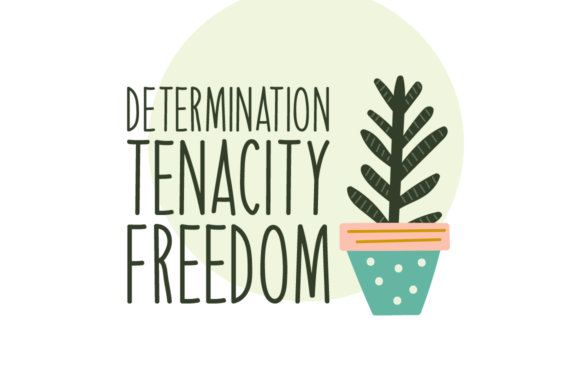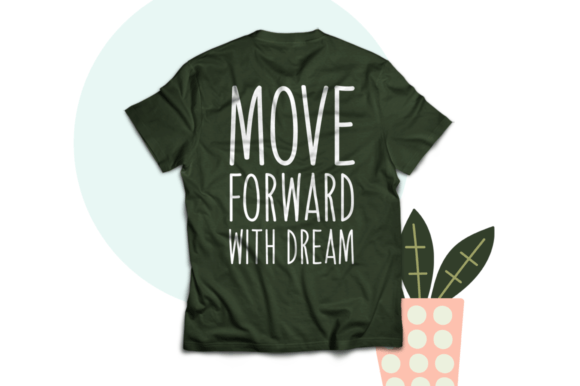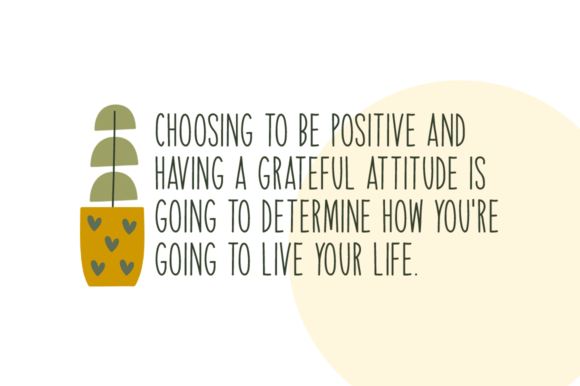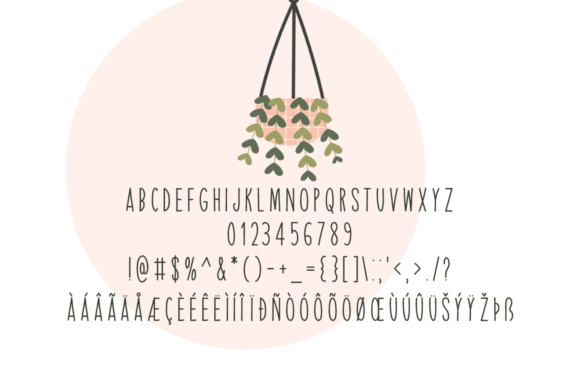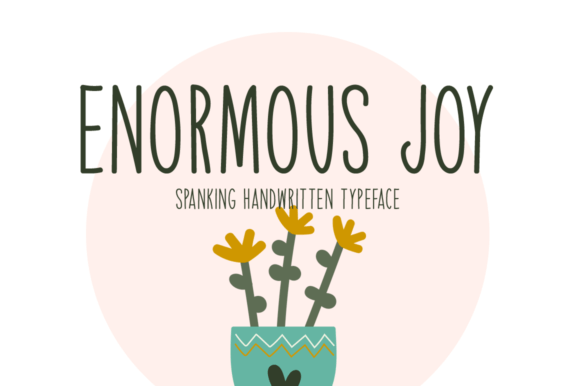
Introducing Enormous Joy Font: The Perfect Handwritten Style for Your Creative Projects
Are you a designer, crafty DIY enthusiast, or simply someone who loves to add a personal touch to your creations? Look no further! We’re thrilled to introduce the Enormous Joy Font, a brand new handwritten font that’s perfectly suited for a wide range of applications. From stationery and logos to t-shirts, paper crafts, and digital designs, this beautiful font is sure to bring a smile to your face and a touch of personality to your projects.
What is Enormous Joy Font?
Enormous Joy Font is a carefully crafted handwritten font that’s designed to evoke a sense of joy, playfulness, and whimsy. With its unique and expressive letterforms, this font is perfect for anyone who wants to add a personal touch to their designs. Whether you’re creating a custom logo, crafting a one-of-a-kind stationery set, or designing a t-shirt, Enormous Joy Font is the perfect choice.
Key Features of Enormous Joy Font
- Handwritten style: Enormous Joy Font features a beautiful, handwritten style that’s perfect for adding a personal touch to your designs.
- Versatile: This font is suitable for a wide range of applications, including stationery, logos, t-shirts, paper crafts, print design, website headers, photo frames, flyers, music covers, posters, image sliders, and more.
- Unique and expressive: With its unique and expressive letterforms, Enormous Joy Font is sure to make your designs stand out from the crowd.
Enormous Joy Font is perfect for designers and crafters who want to add a personal touch to their creations. Whether you’re a professional designer or a DIY enthusiast, this font is sure to inspire you to create something beautiful and unique. With its versatility and ease of use, Enormous Joy Font is the perfect choice for:
- Stationery design: Create custom stationery sets, including notecards, journals, and planners.
- Logo design: Design unique and memorable logos for your business or brand.
- T-shirt design: Create custom t-shirts, hoodies, and other apparel with Enormous Joy Font.
- Paper crafts: Add a personal touch to your paper crafts, including cards, scrapbook pages, and origami.
- Digital design: Use Enormous Joy Font in your digital designs, including website headers, social media graphics, and more.
Tips for Using Enormous Joy Font
Here are a few tips for using Enormous Joy Font in your designs:
- Experiment with different colors: Enormous Joy Font looks great in a variety of colors, so don’t be afraid to experiment and find the perfect hue for your design.
- Mix and match with other fonts: Combine Enormous Joy Font with other fonts to create a unique and interesting design.
- Use it for headlines and titles: Enormous Joy Font is perfect for headlines and titles, so use it to add a touch of personality to your designs.
- Add some flair with graphics: Use Enormous Joy Font in combination with graphics and illustrations to create a truly unique design.